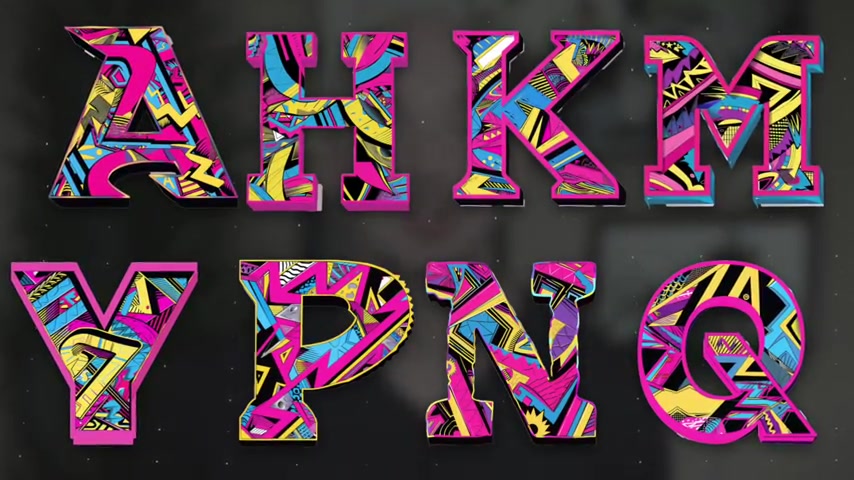
Create Custom Fonts with Midjourney: A Comprehensive Guide
Unleash your creativity with custom fonts! This guide provides a detailed walkthrough on using Midjourney to design unique and personalized typography. Whether you're a seasoned designer or a creative enthusiast, this tutorial will empower you to craft fonts that stand out. Learn the prompts, parameters, and techniques to generate stunning, one-of-a-kind typefaces.
Key Points
Master the foundational prompt for font creation in Midjourney.
Utilize parameters like chaos and aspect ratio for diverse font styles.
Discover techniques to fix 'wonky' letters that don't generate correctly.
Learn how to use image prompts and style references for consistent font design.
Explore both Discord and Midjourney's website for font generation.
Understand the importance of upscaling for professional use.
Identify common challenges and solutions in font creation.
Experiment with different style versions to refine your font.
Creating Custom Fonts with Midjourney
Step 1: Crafting Your Foundational Prompt
The foundation of any successful Midjourney creation lies in the prompt. A well-crafted prompt guides the AI toward the desired outcome. For Font creation, a foundational prompt serves as the blueprint for all subsequent letters. This Prompt needs specific elements to ensure consistency and quality across your entire Typeface.
Five key elements to focus on:
1. Theme: Select a clear and concise theme for your font. Stick to one or two keywords to avoid diluting the prompt. For example, consider 'pirate-themed' or '90s electric'.
2. Outline: Decide on the outline style for your letters. Specify directions such as 'bold black Outline,' or feelings like 'crisp,' 'sleek,' or 'messy.' Even concrete terms like 'contour' can be effective.
3. Background: Include either a white or black background in your prompt to make it easier to isolate the letters later. This simplifies the process of extracting and refining your font.
4. Letter Choice: While not strictly required, it's recommended to start with the letter 'S.' This is a common starting point and can help establish the style and consistency of your font.
5. Parameters: Add specific Midjourney parameters to control the final output. These include:
• --c 2 or --c 3 (Chaos): Introduce a small chaos value (2 or 3) to create variety in your generated letters. It gives you a broader selection to choose from.
• --ar 1:1 (Aspect Ratio): Use a square aspect ratio (1:1) to get a well-proportioned output. You can experiment with different ratios, but a square ratio usually yields the best results for fonts.
Example Prompts:
• 'a pirate-themed letter “S” font, white background --ar 1:1 --c 2'
• 'a 90s electric-themed letter "S" font with bold black outline on a white background --ar 1:1 --c 2'
• 'a tie-dye letter "S" font with black outline, on a white background'
• 'retro-futuristic-themed letter "S" font with an aesthetic outline on a white background'
The most important thing is to experiment. You will be surprised how creative the results can be.
Step 2: Prompting for Other Letters
Once you've created your foundational 'S,' it's time to generate the rest of the alphabet. Reusing the foundational prompt ensures consistency across your font. It is important to keep the images consistent so they fit together as a full font.
Here's how to prompt for other letters:
1. Copy and Paste: Copy the foundational prompt (excluding the parameters). This maintains the core style and theme.
2. Replace 'S': Replace the letter 'S' in the prompt with other letters. You can do this one letter at a time or use permutations for efficiency.
• One Letter at a Time: Manually change the letter in the prompt and generate the image for each letter.
• Permutations: Use curly brackets to specify multiple letters in a single prompt (e.g., 'a zoo-themed letter {“Y”, “O”, “U”, “T”, “E”} font, white background'). This tells Midjourney to generate variations for each letter within the brackets.
3. Image and Style References: After getting the image you want, expand the image and copy the link and use in prompt, and then change to another letter to ensure images are consistently generated in similar ways.
4. Add Parameters: When adding the image to your prompt, remember to paste the image address at the end of your prompt. Add the parameters back in. These should include:
• --iw [value]: Image weight.
• --sref [original image url]: Style reference for consistent styling.
• --ar [aspect ratio]: Aspect ratio for the new letters.
Following these steps, you can efficiently generate a complete set of letters that adhere to your chosen theme and style.
Step 3: Fixing Wonky Letters
Not all letters generate perfectly the first time. Certain letters (like 'L,' 'T,' and 'O') can be challenging for AI to render accurately. The following ways can fix issues.
How can I further refine my Midjourney-generated fonts?
Consider using vector graphics editors like Adobe Illustrator or Inkscape to clean up outlines, adjust spacing, and add any additional stylistic flourishes you desire.
What are some popular themes for custom fonts?
Popular themes include vintage, futuristic, minimalist, hand-drawn, and nature-inspired. Choose a theme that resonates with your project's aesthetic and target audience.